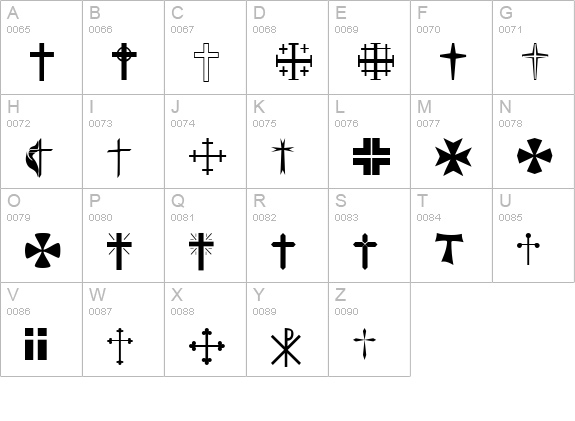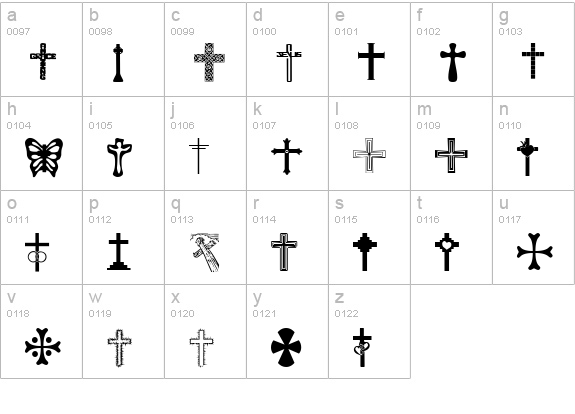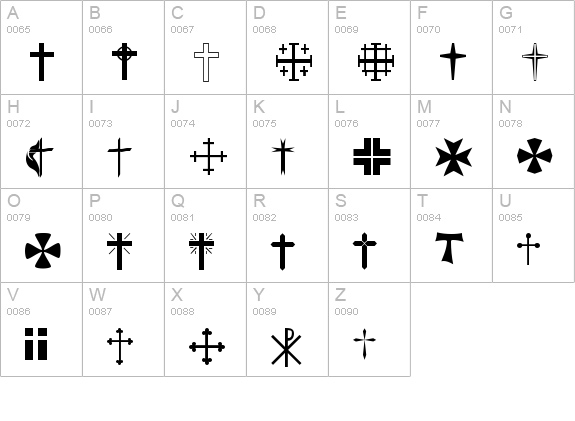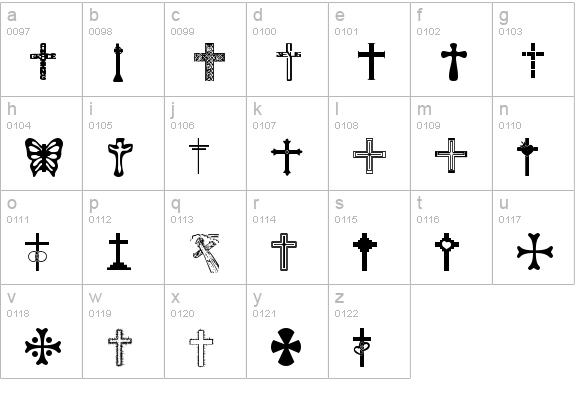
Christian Crosses Font Details
The Christian Crosses font is a beautifully crafted typeface that exudes elegance and tradition. Each character features intricate designs inspired by the iconic Christian symbol of the cross, adding a touch of sophistication to any project. This font is perfect for creating religious-themed designs, invitations, posters, and more. Best of all, the Christian Crosses font is available for free download at FontsMarket.com. Embrace the timeless beauty of this font in your designs and let the power of the cross inspire your creativity. Download now and add a touch of spiritual significance to your projects with this stunning font.